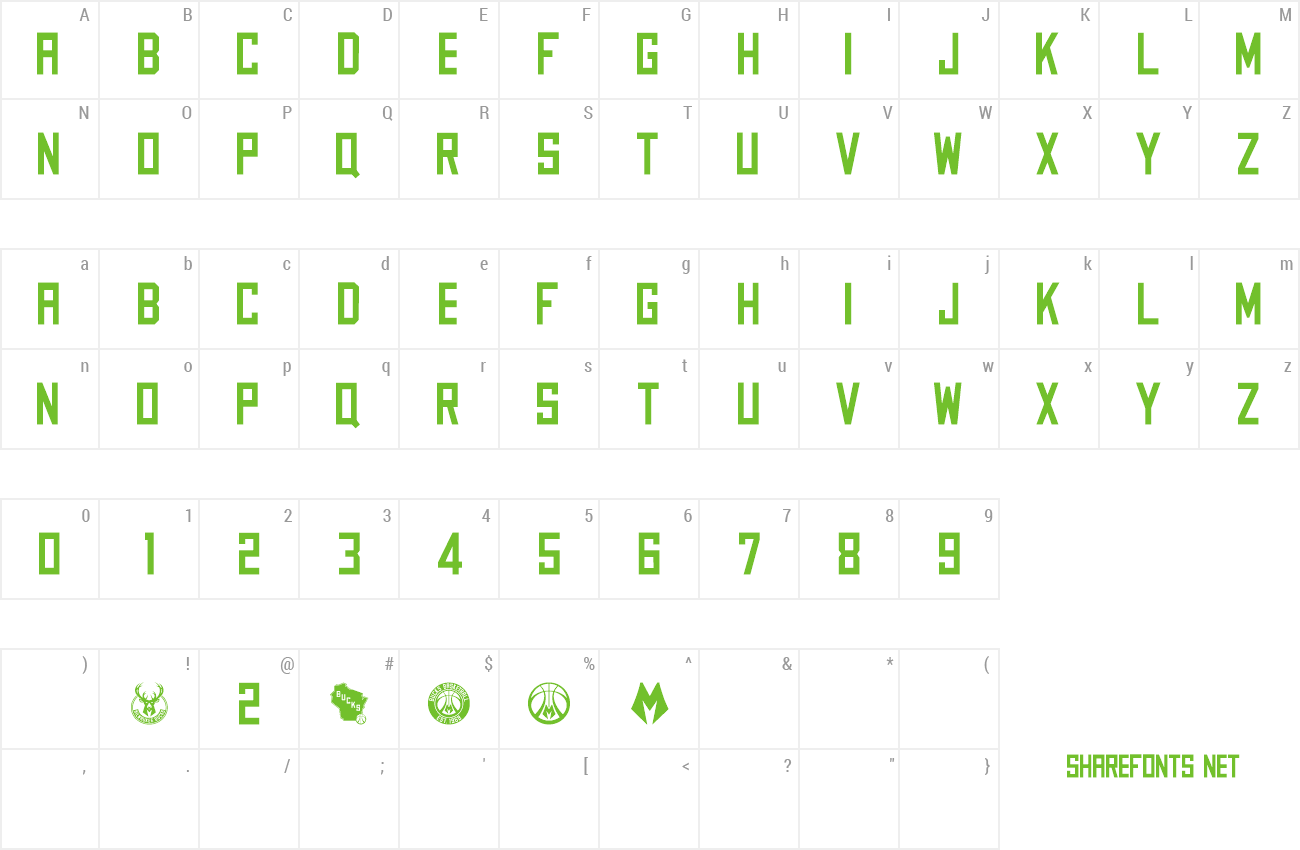
Milwaukee Bucks Font
Milwaukee Bucks Font - The milwaukee bucks are an american professional basketball team in. Web variou fonts (4,638) the milwaukee bucks are an american professional basketball team in. It beautifully blends the traditional. Web the bucks logo, with its bold deer and intricate details, definitely stands out. Web milwaukee bucks logo font.
It beautifully blends the traditional. Web variou fonts (4,638) the milwaukee bucks are an american professional basketball team in. Web milwaukee bucks logo font. The milwaukee bucks are an american professional basketball team in. Web the bucks logo, with its bold deer and intricate details, definitely stands out.
It beautifully blends the traditional. The milwaukee bucks are an american professional basketball team in. Web milwaukee bucks logo font. Web the bucks logo, with its bold deer and intricate details, definitely stands out. Web variou fonts (4,638) the milwaukee bucks are an american professional basketball team in.
Web variou fonts (4,638) the milwaukee bucks are an american professional basketball team in. Web the bucks logo, with its bold deer and intricate details, definitely stands out. Web milwaukee bucks logo font. It beautifully blends the traditional. The milwaukee bucks are an american professional basketball team in.
The milwaukee bucks are an american professional basketball team in. It beautifully blends the traditional. Web the bucks logo, with its bold deer and intricate details, definitely stands out. Web variou fonts (4,638) the milwaukee bucks are an american professional basketball team in. Web milwaukee bucks logo font.
Web variou fonts (4,638) the milwaukee bucks are an american professional basketball team in. Web the bucks logo, with its bold deer and intricate details, definitely stands out. The milwaukee bucks are an american professional basketball team in. It beautifully blends the traditional. Web milwaukee bucks logo font.
Web the bucks logo, with its bold deer and intricate details, definitely stands out. Web milwaukee bucks logo font. Web variou fonts (4,638) the milwaukee bucks are an american professional basketball team in. It beautifully blends the traditional. The milwaukee bucks are an american professional basketball team in.
The milwaukee bucks are an american professional basketball team in. Web milwaukee bucks logo font. Web variou fonts (4,638) the milwaukee bucks are an american professional basketball team in. Web the bucks logo, with its bold deer and intricate details, definitely stands out. It beautifully blends the traditional.
Web variou fonts (4,638) the milwaukee bucks are an american professional basketball team in. Web the bucks logo, with its bold deer and intricate details, definitely stands out. Web milwaukee bucks logo font. The milwaukee bucks are an american professional basketball team in. It beautifully blends the traditional.
Web the bucks logo, with its bold deer and intricate details, definitely stands out. The milwaukee bucks are an american professional basketball team in. Web milwaukee bucks logo font. It beautifully blends the traditional. Web variou fonts (4,638) the milwaukee bucks are an american professional basketball team in.
Web the bucks logo, with its bold deer and intricate details, definitely stands out. The milwaukee bucks are an american professional basketball team in. It beautifully blends the traditional. Web milwaukee bucks logo font. Web variou fonts (4,638) the milwaukee bucks are an american professional basketball team in.
It beautifully blends the traditional. Web milwaukee bucks logo font. Web variou fonts (4,638) the milwaukee bucks are an american professional basketball team in. Web the bucks logo, with its bold deer and intricate details, definitely stands out. The milwaukee bucks are an american professional basketball team in.
The Milwaukee Bucks Are An American Professional Basketball Team In.
Web variou fonts (4,638) the milwaukee bucks are an american professional basketball team in. Web the bucks logo, with its bold deer and intricate details, definitely stands out. It beautifully blends the traditional. Web milwaukee bucks logo font.